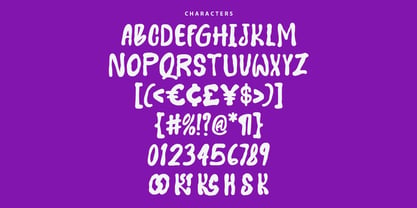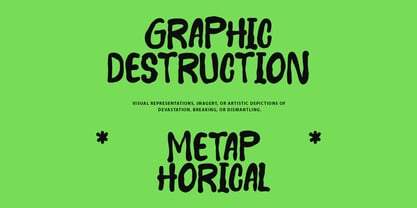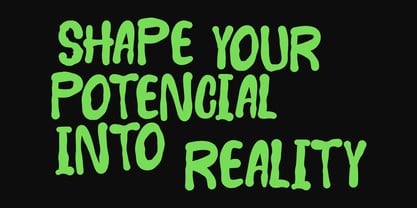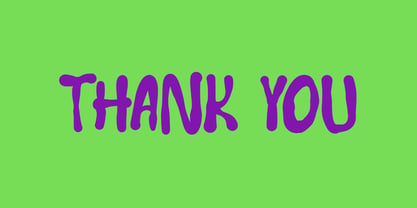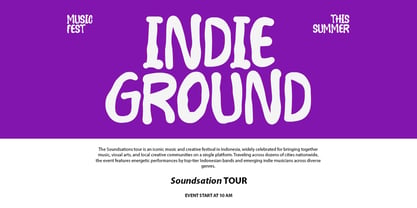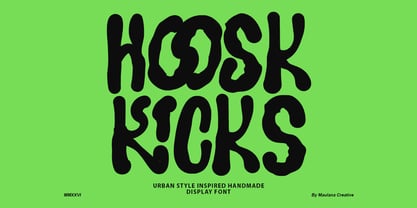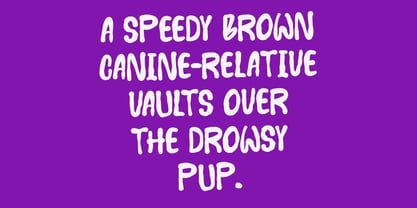
Hoosk Kicks
by Maulana Creative
The Hoosk Kicks Font Family was designed by Gilang Maulana and published by Maulana Creative. Hoosk Kicks contains 1 styles. More about this family
Embrace raw urban energy with Hoosk Kicks, a bold and dynamic display font. This unique typeface features irregular, hand-drawn letterforms that evoke a sense of creative freedom and authenticity. Its chunky weight and expressive lines make it stand out, commanding attention while adding a gritty, textured touch to any layout.
Ideal for captivating headlines, vibrant posters, and cutting-edge digital branding, Hoosk Kicks infuses projects with modern, artistic flair. It comes equipped with ligatures and swashes that enhance its playful, spontaneous feel, offering versatility for packaging, event promotions, and editorial creative work. Experience the power of artisanal typography with this urban-inspired gem.
Designers: Gilang Maulana
Foundry: Maulana Creative